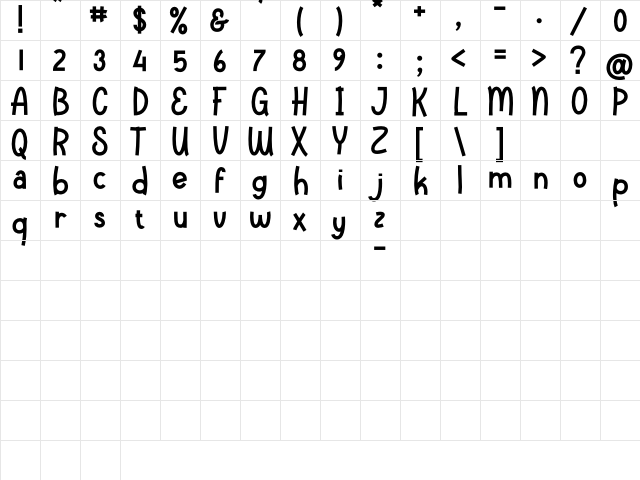
Biggest Things Regular
Design Context for Biggest Things Typeface
Biggest Things is a composed and adaptable typeface that performs quietly and consistently across a wide range of design contexts. Its slender proportions lend an understated elegance to any composition.
Pro Tip: Use Biggest Things in both headline and body roles to test its range before committing to a single application.